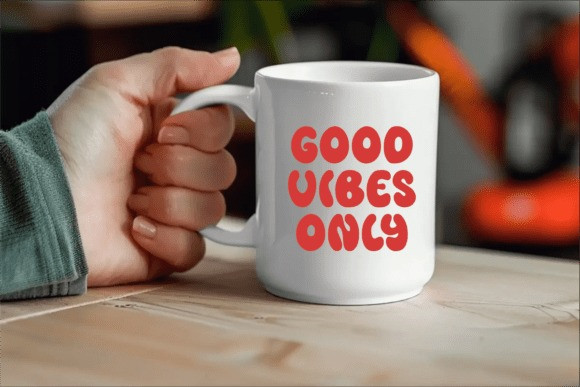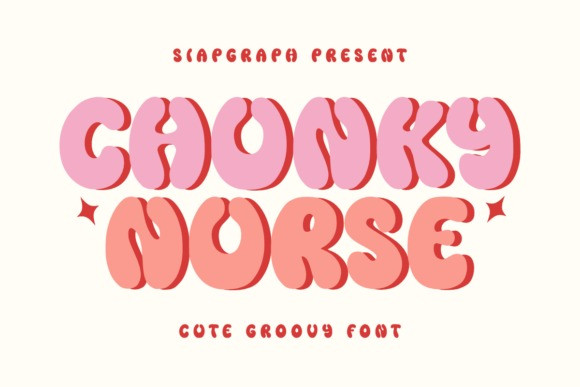
Chunky Nurse Font
Chunky Nurse is a display font that exudes a fun and thick personality with a touch of groovy charm. Its delightfully chunky and rounded letterforms, combined with subtle wavy edges, create a retro yet contemporary feel that’s both eye-catching and approachable. This font is perfect for injecting a dose of playful boldness into a wide variety of creative endeavors.
Imagine Chonky Norse bringing a vibrant energy to stickers, groovy planner designs, bold t-shirt slogans, impactful labels, unique invitations, personalized tumblers, and a plethora of other engaging crafts. Its distinctively thick and fun style makes it exceptionally well-suited for products targeting end-users who love to craft with Cricut, sublimation, and other DIY techniques, ensuring their creations have a standout, memorable aesthetic. Chonky Norse’s unique character will make your designs pop and bring a smile with its retro-inspired yet modern vibe